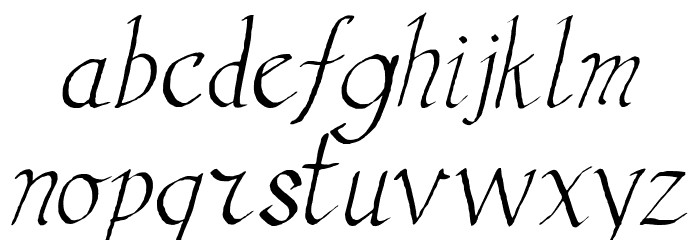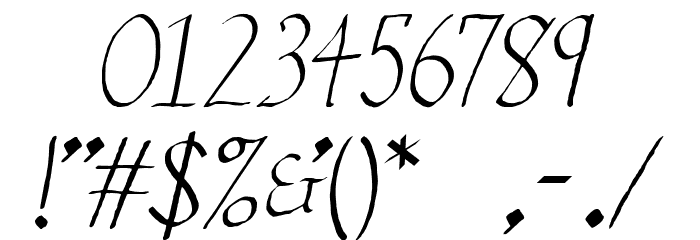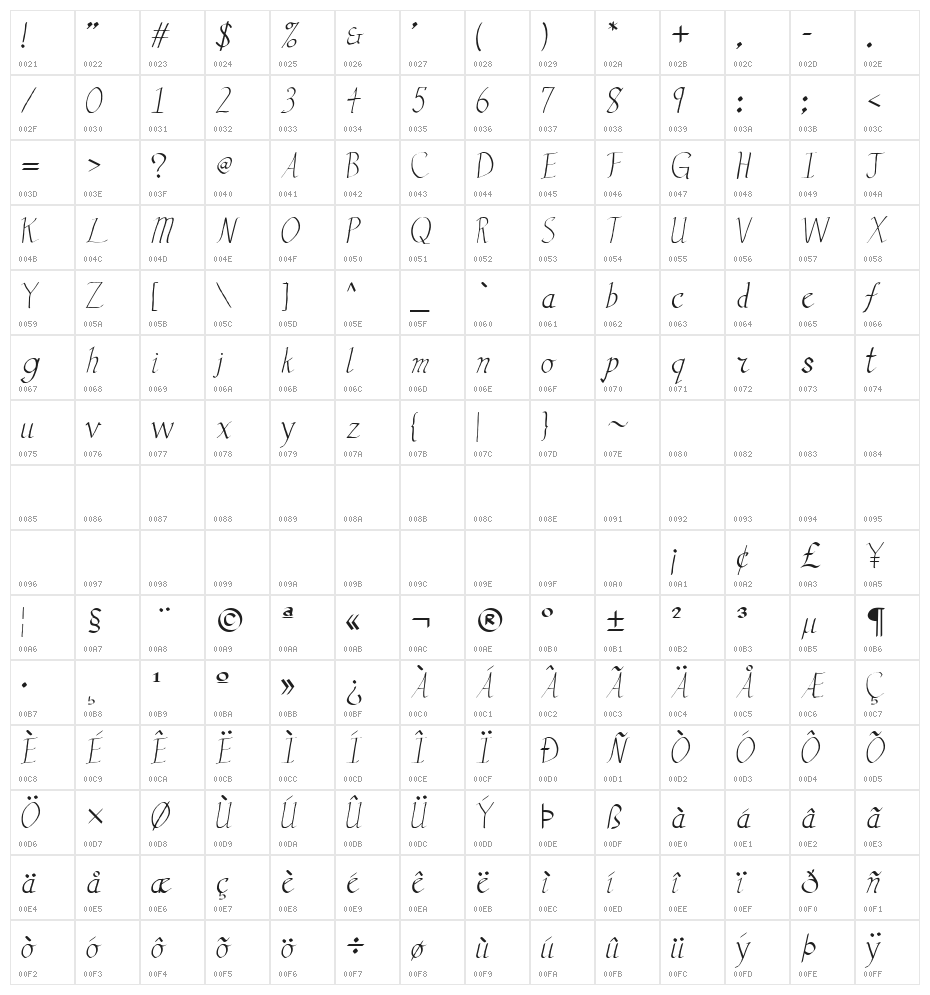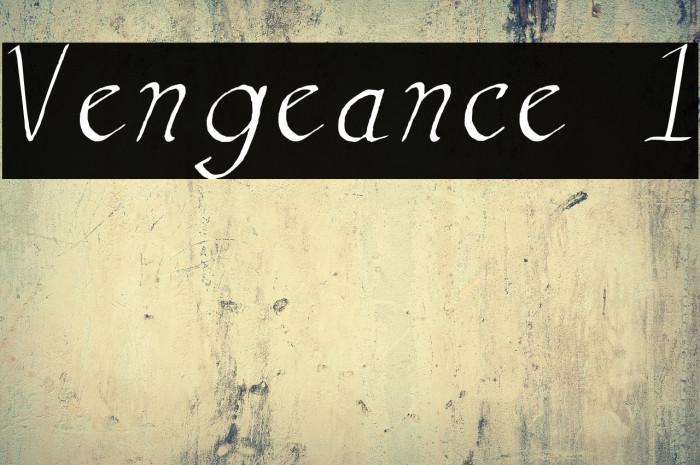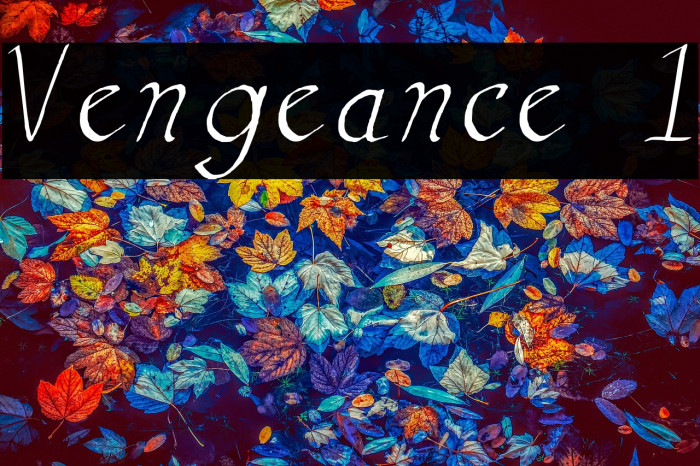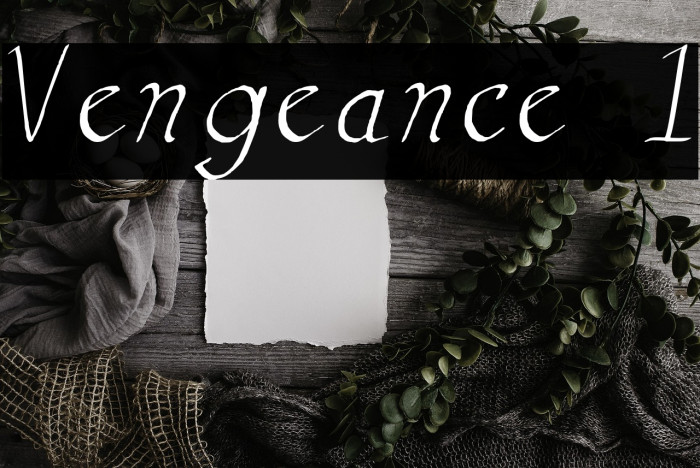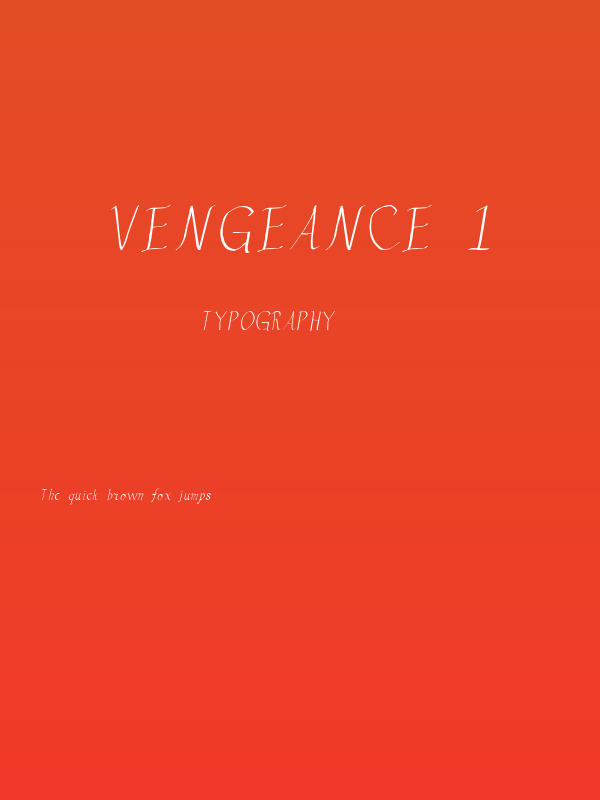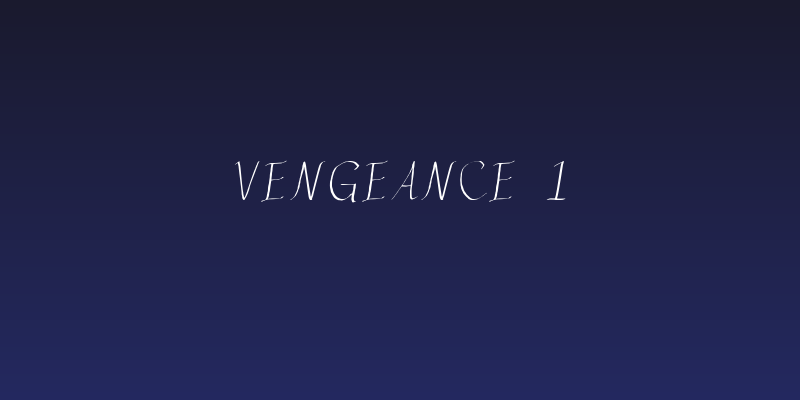
Vengeance 1 Font
This font exhibits a dynamic and expressive style, characterized by its flowing, cursive-like strokes that convey a sense of movement and elegance. The uppercase letters are tall and slightly narrow, with a distinctive slant that adds a touch of sophistication. The lowercase letters maintain a consistent style, with smooth curves and a graceful appearance. The numerals are well-proportioned, complementing the overall aesthetic. Special characters are designed with the same fluidity, ensuring a cohesive look across all elements. The font's unique style makes it suitable for creative and artistic projects, where a touch of elegance and flair is desired.
A dynamic, cursive-like font with elegant, flowing strokes.
- Font: Vengeance 1
- Proposed Projects: Ideal for wedding invitations, artistic branding, and elegant packaging designs.
- Category: Script
- Use Case: Logos, Invitations, Artistic projects